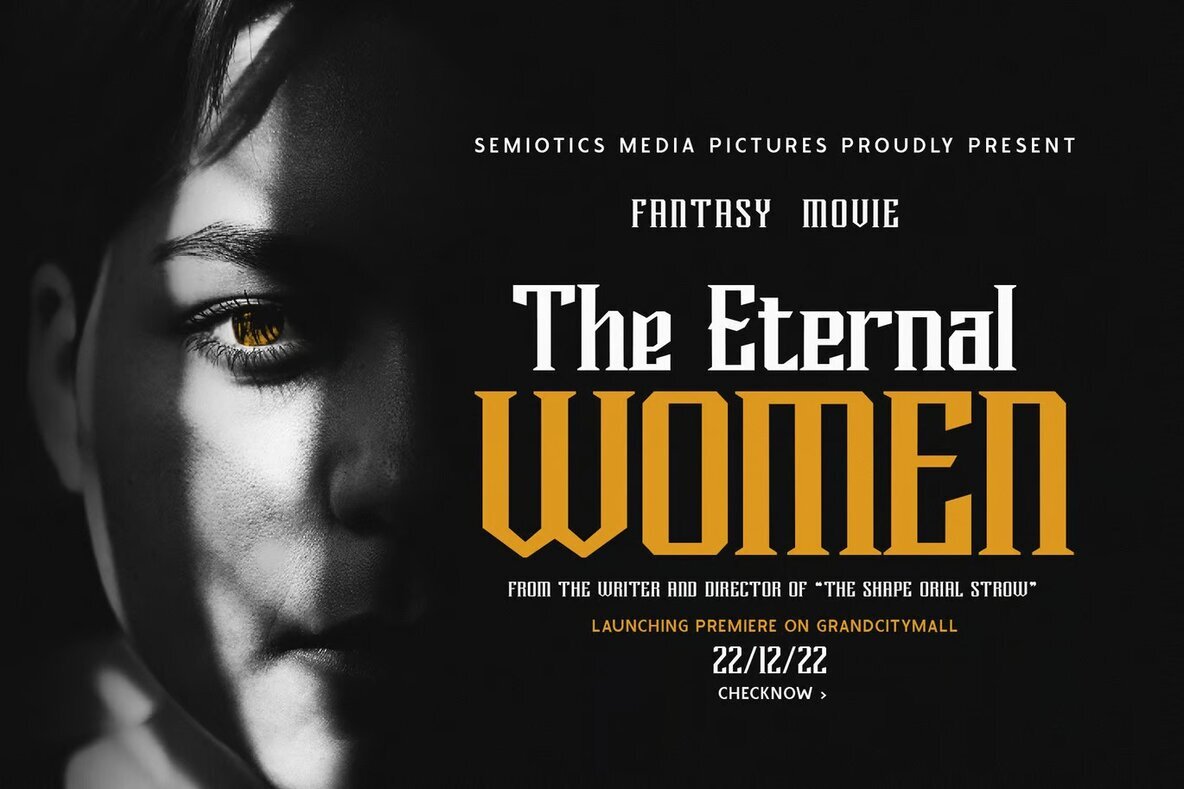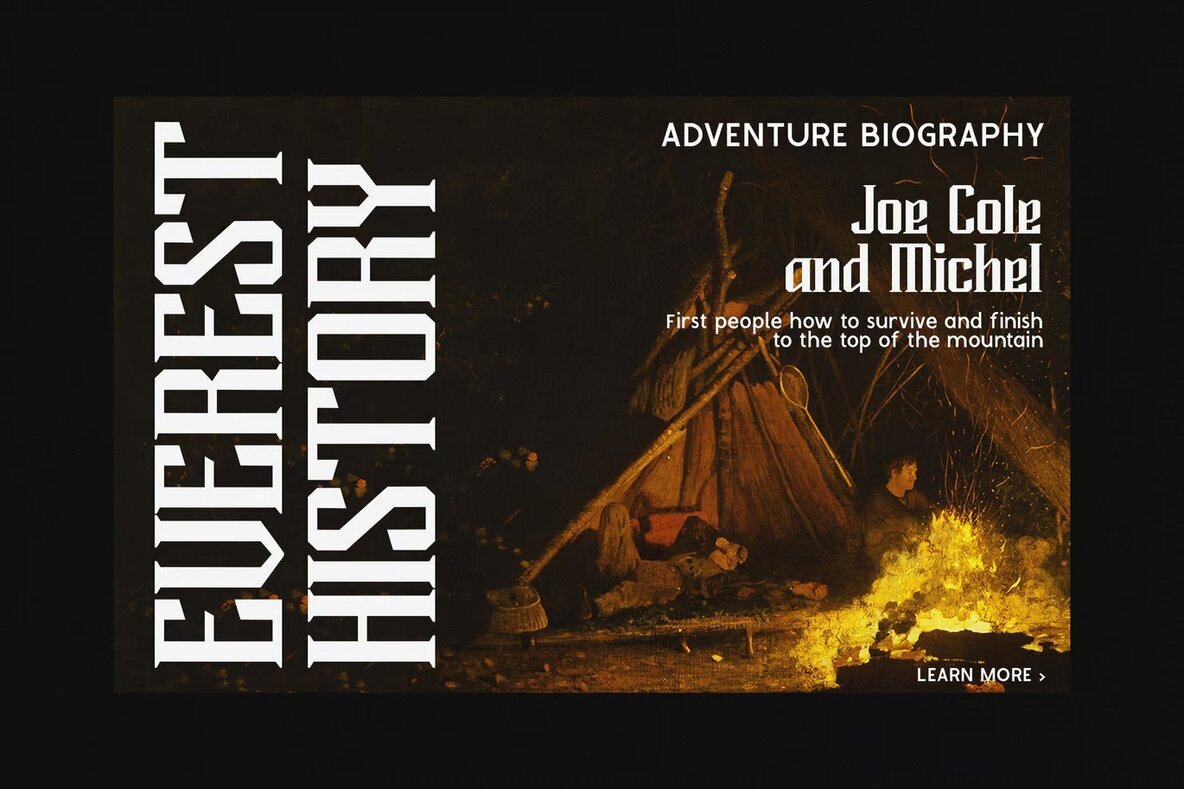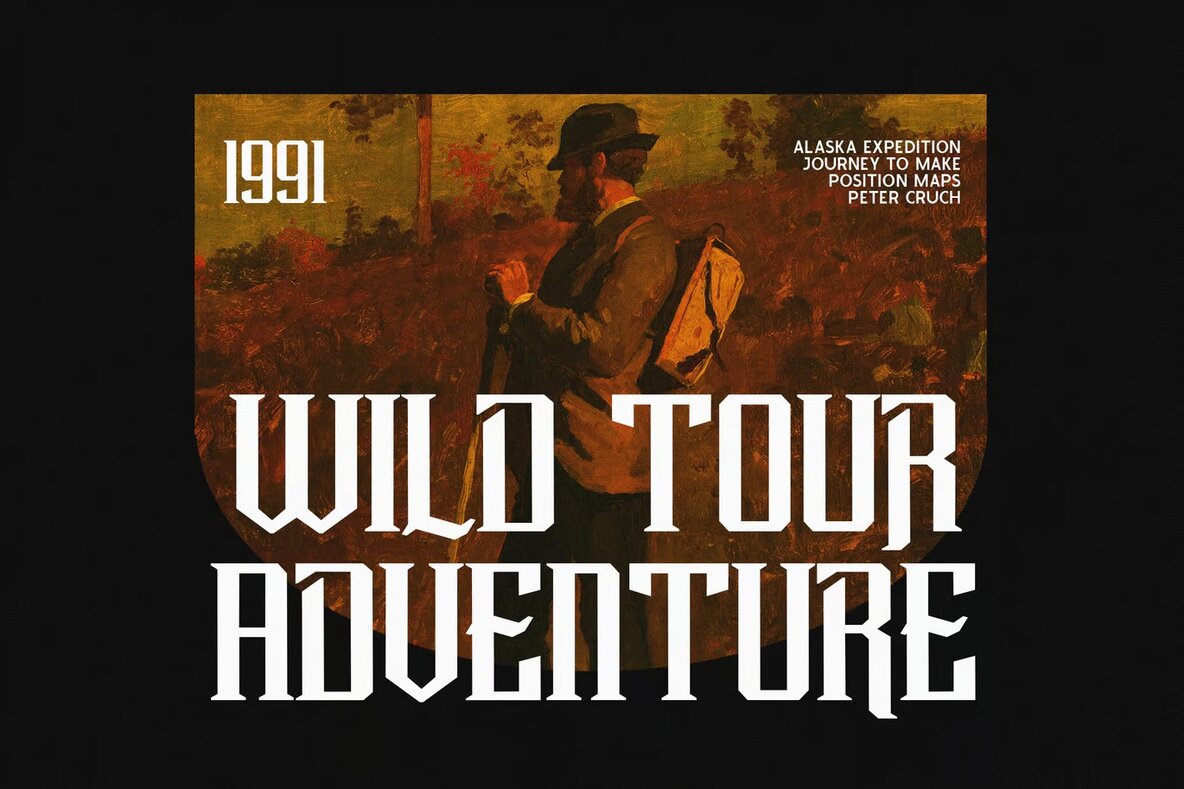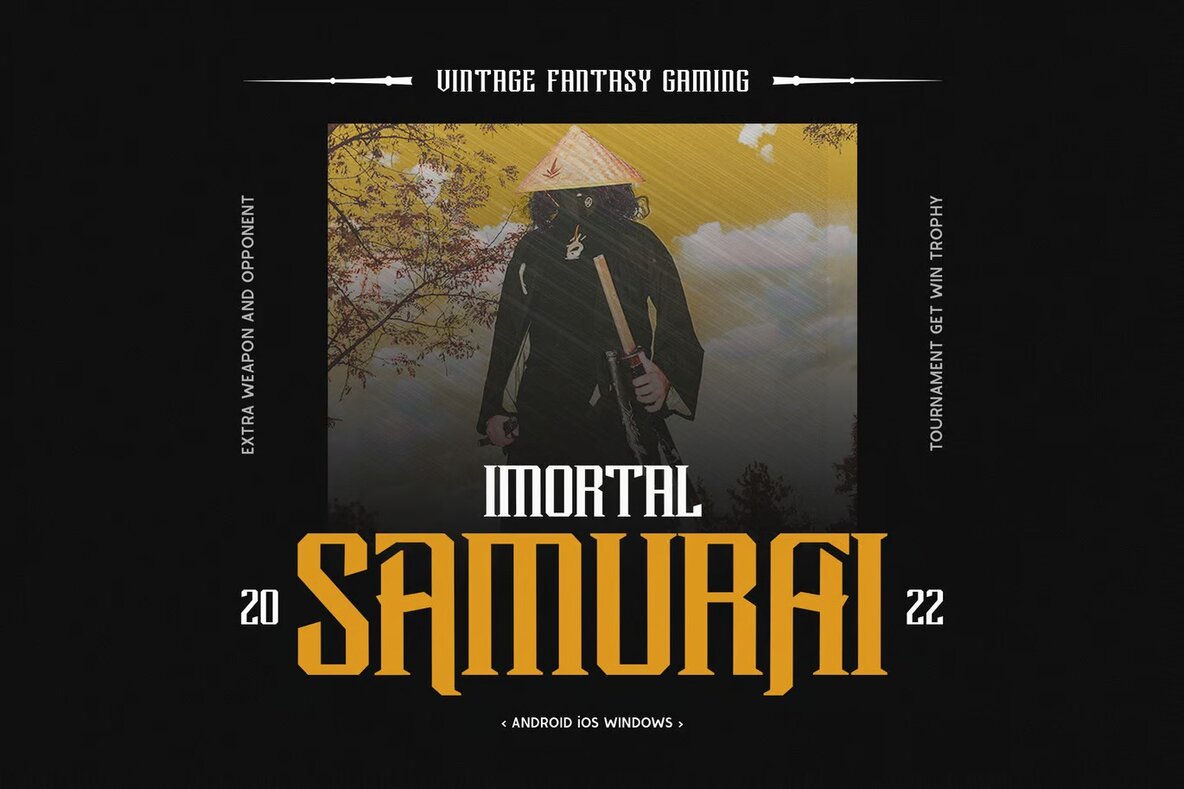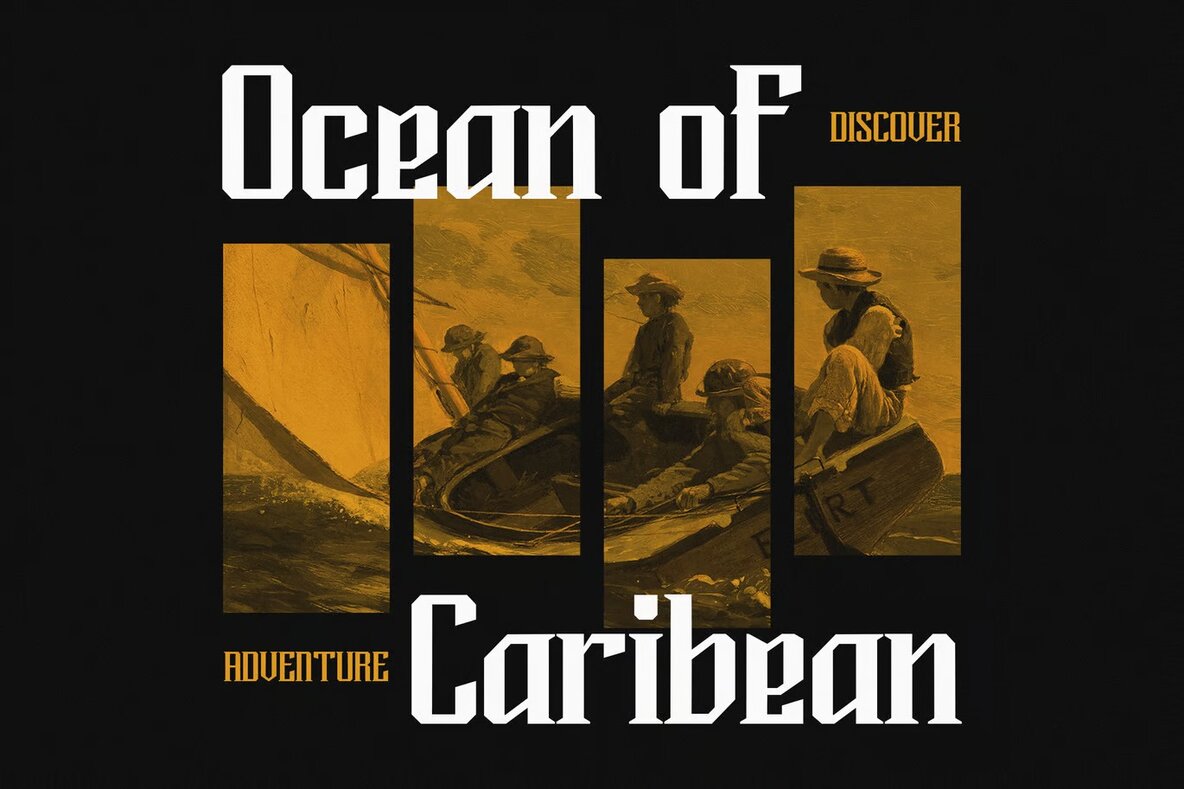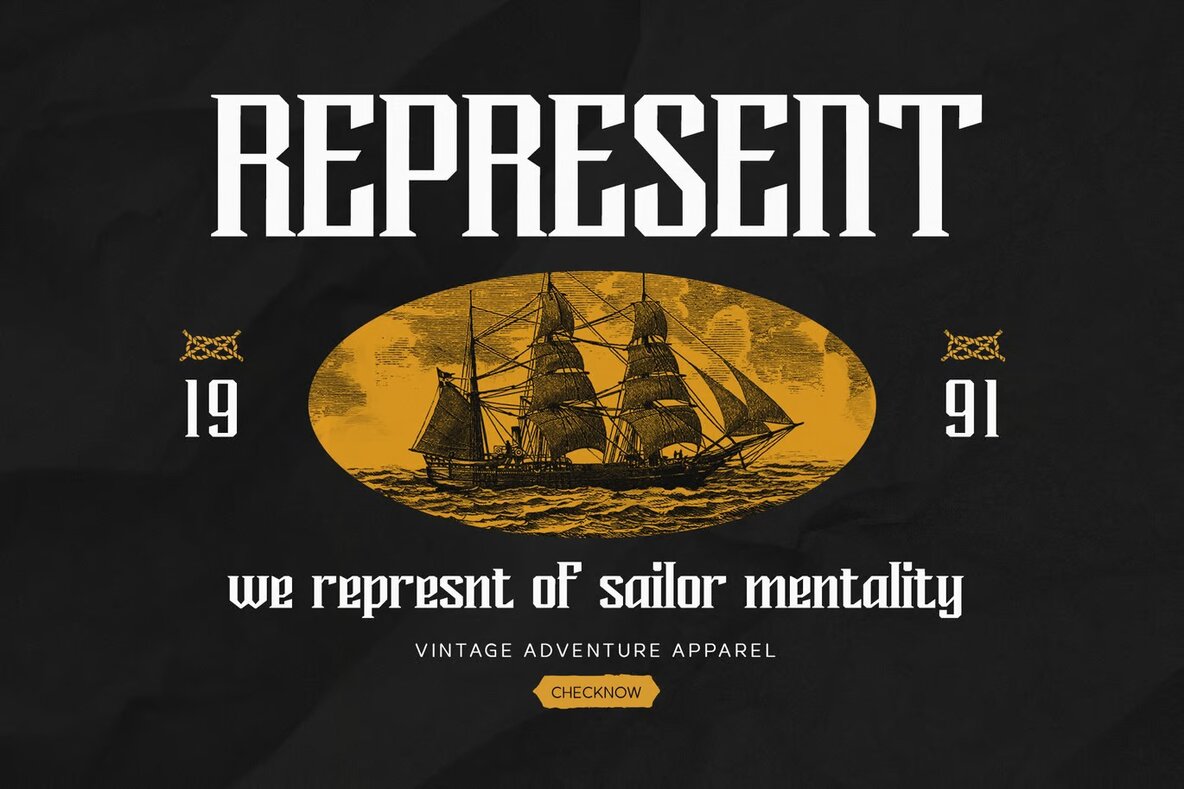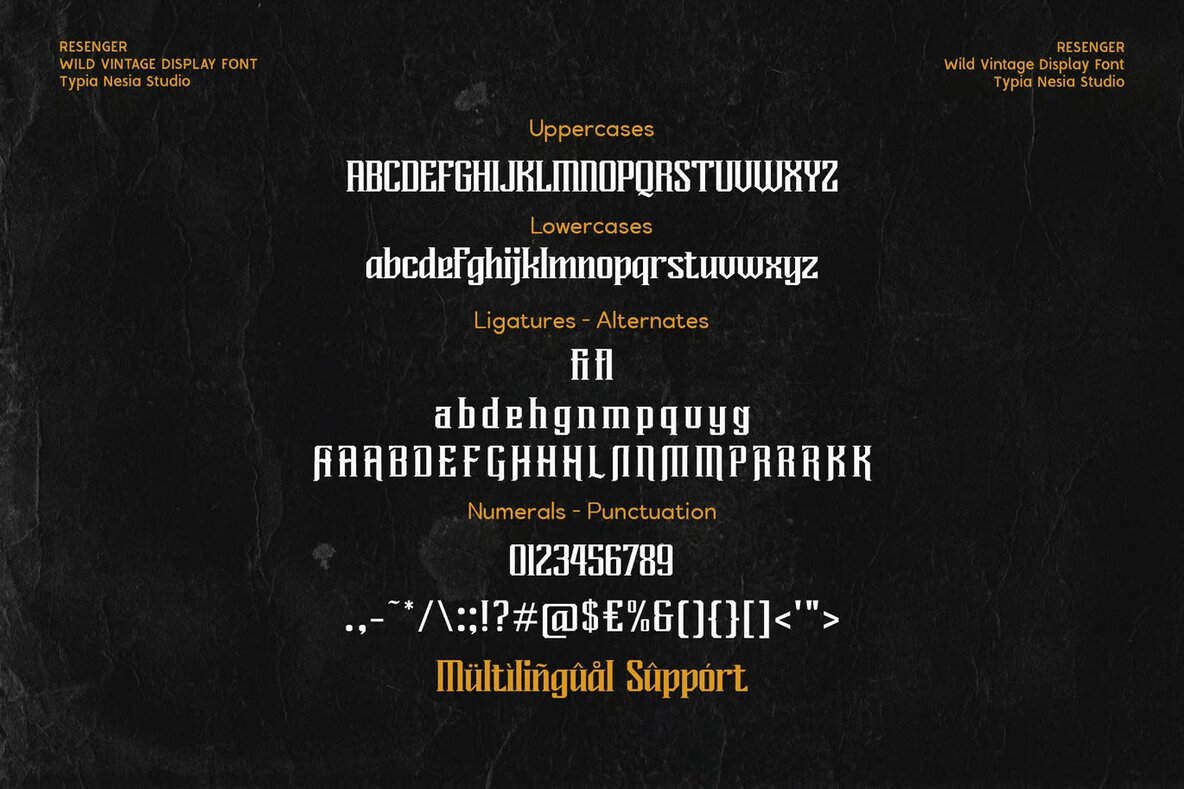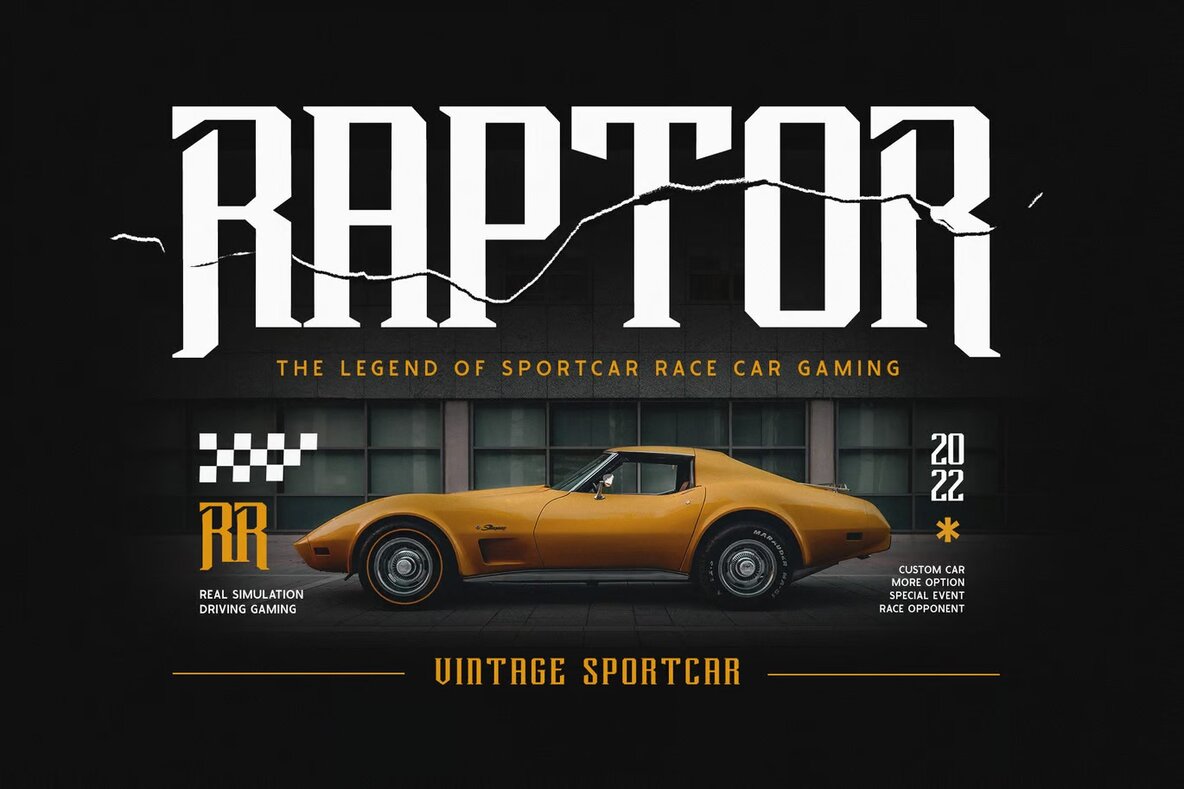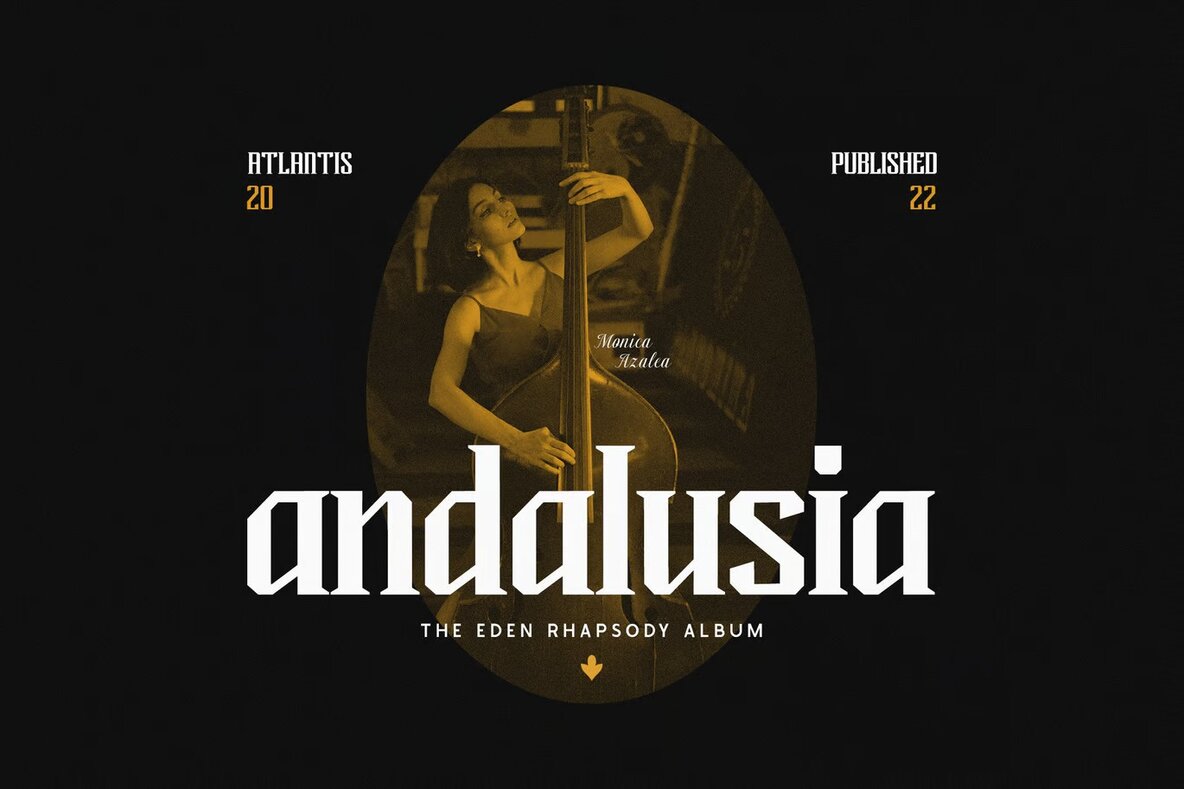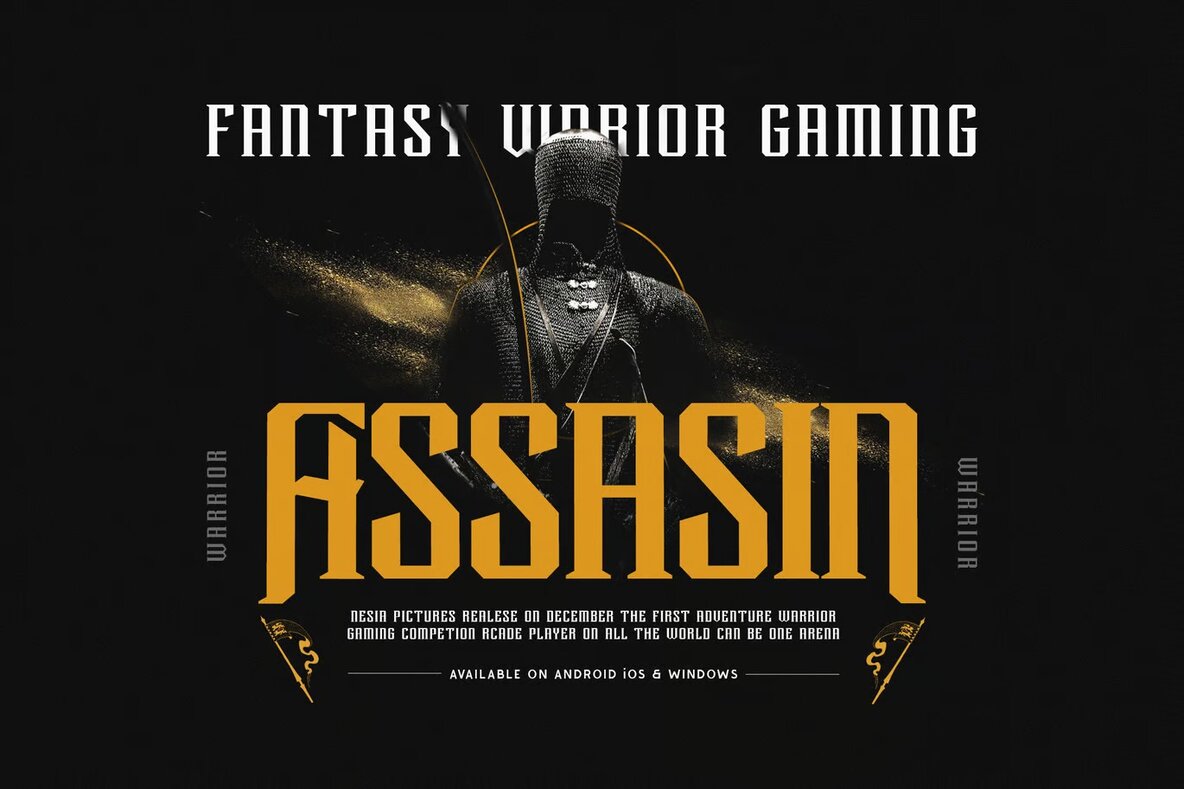
Resenger Font
Resenger Regular
Resenger is a wild, vintage-style condensed display font perfect for adventurous design projects. Its rugged and bold character makes it ideal for logo creation, branding, and various advertising designs. Whether you're working on a vintage garage concept, developing an adventure or mountain hiking brand, or designing for hardcore music, Resenger provides an authentic and compelling aesthetic.
This font seamlessly fits into animations, movies, retro summer poster quotes, book covers, editorial designs, and websites or blogs. Its versatility extends to creating striking card designs and more. Embrace the adventurous spirit of Resenger to make your designs stand out with a unique, vintage flair.